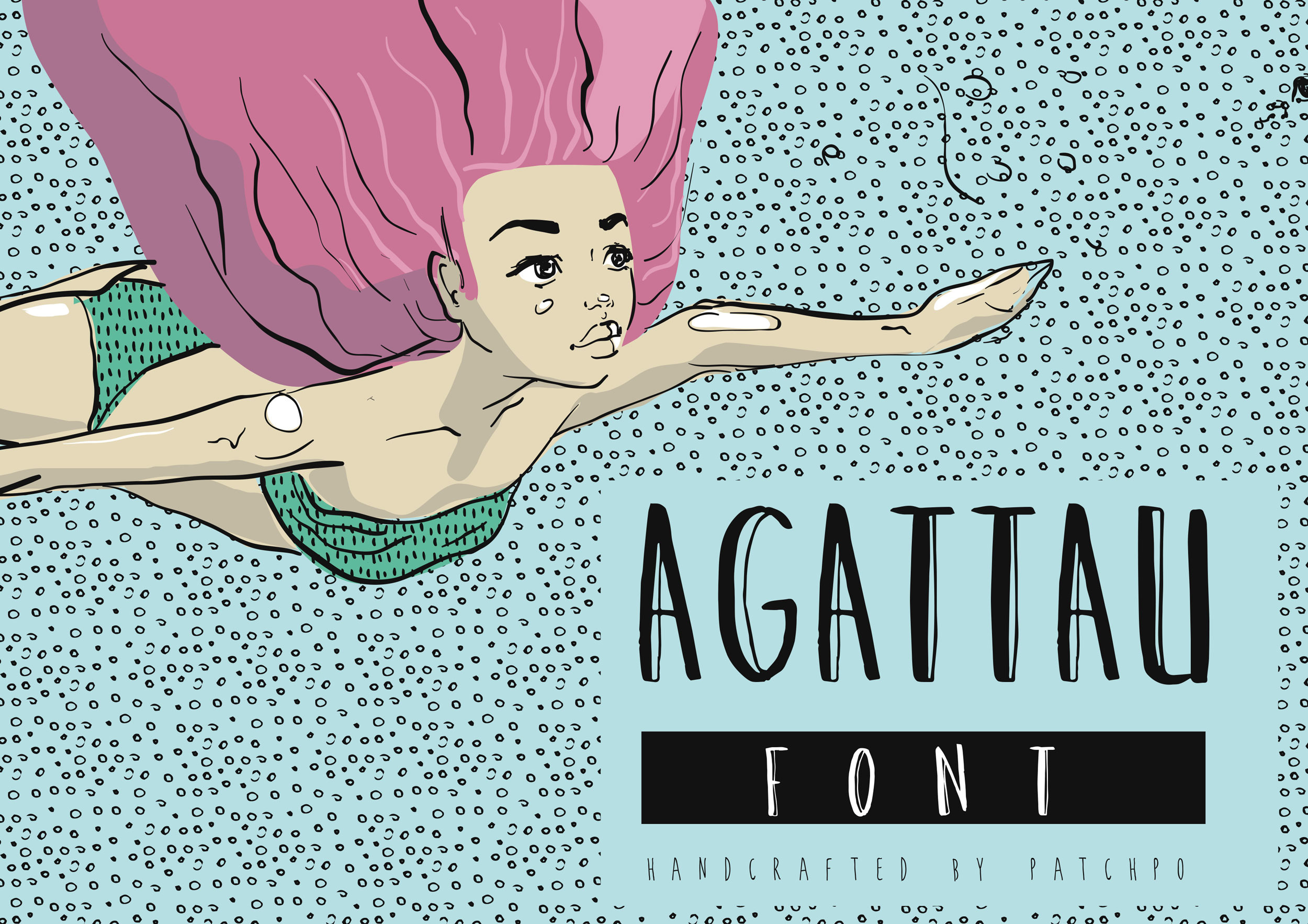
Agattau font + pattern + borders
AGATTAU font
Agattau is a lovely hand drawn font!
The ornaments have a range of items to enhance your work, and even come with some versatile patterns and text dividers. All made to save time and make branding and designing super-easy!